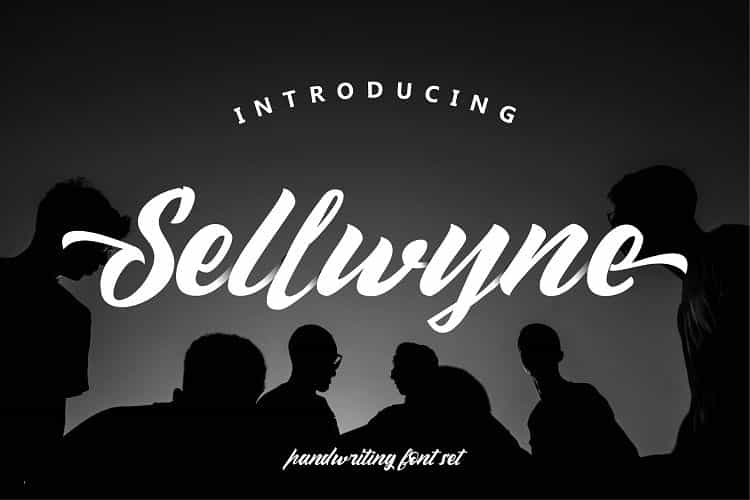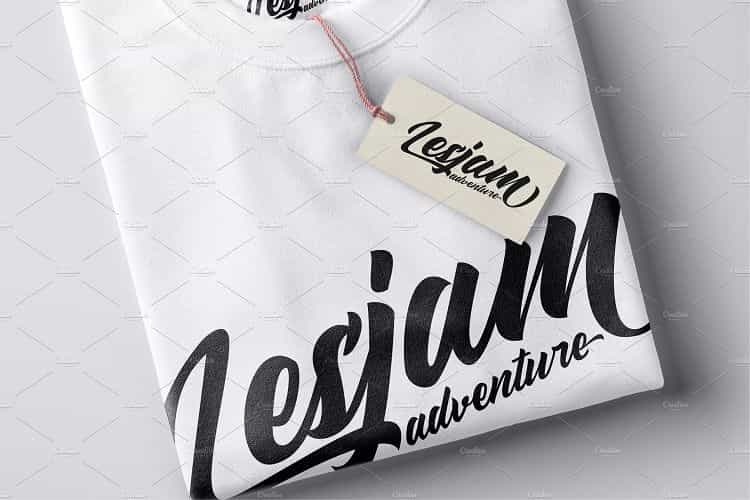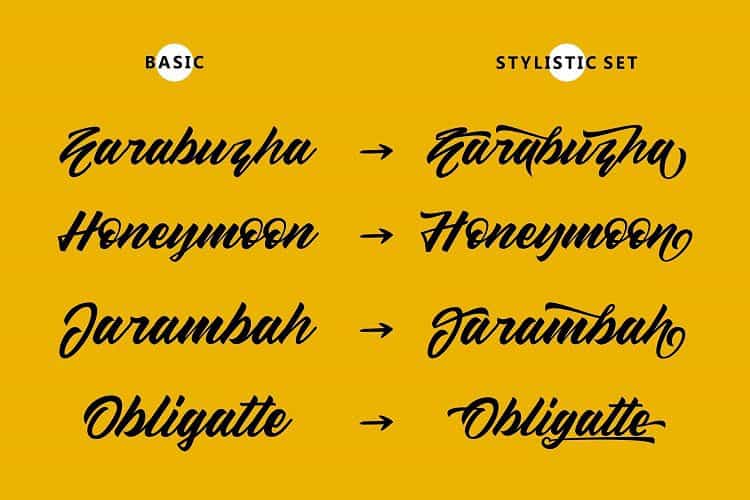
Discover Sellwyne Script Font, part of the Brush Calligraphy Handwritten collection—a versatile and unique font perfect for adding a personal touch to your projects. Download it for free and enjoy crafting designs with style, from invitations to social media posts. This font is available exclusively for personal use, giving you the freedom to create without limits. Unlock your creativity with Sellwyne Script Font today!
Introducing Sellwyne Font. Sellwyne was created and shared by Garisman Std. This font gives you a possibility to make handlettering easily. Furthermore, this font is very fitting for t-shirt design, branding projects, wedding designs, social media posts and advertisements. Also it can be used in product packaging and logo as well.